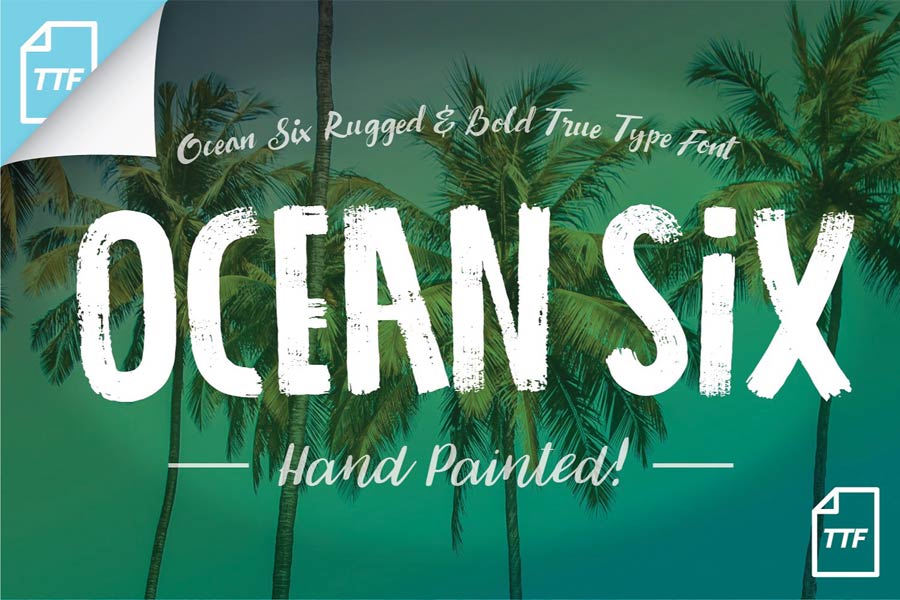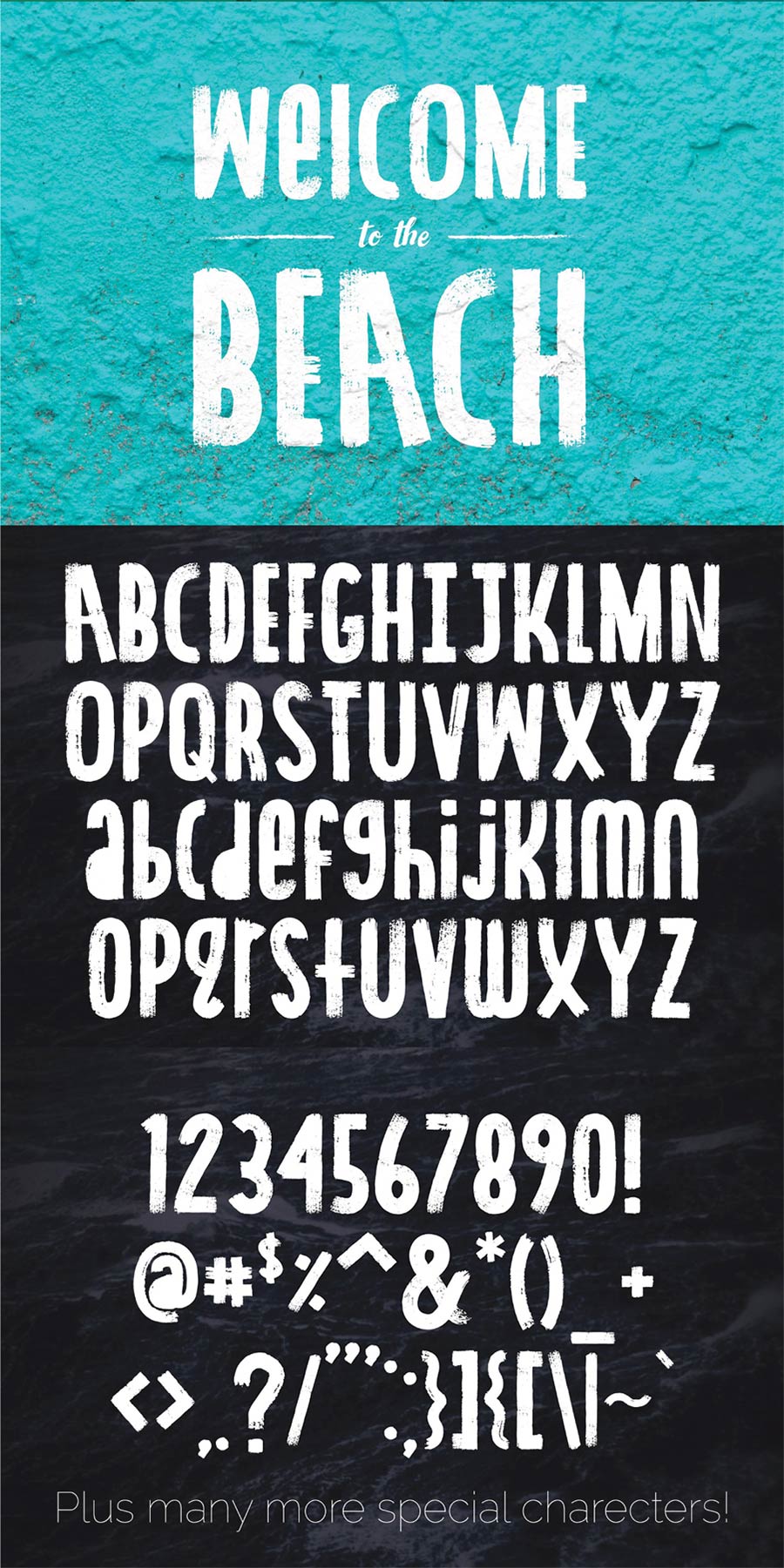
Ocean Six is a condensed, bold display typeface that you can download for free. It features a unique, mathematically calculated strokes while retaining the organic handmade look. This font was made with scanned and vectorised acrylic brush strokes, it has the usual lower and upper cases, also numbers and punctuations.
Ocean Six is perfect for poster, invitation, signage designs and more if you want to bring out the vivid, summer-like beach vibes.